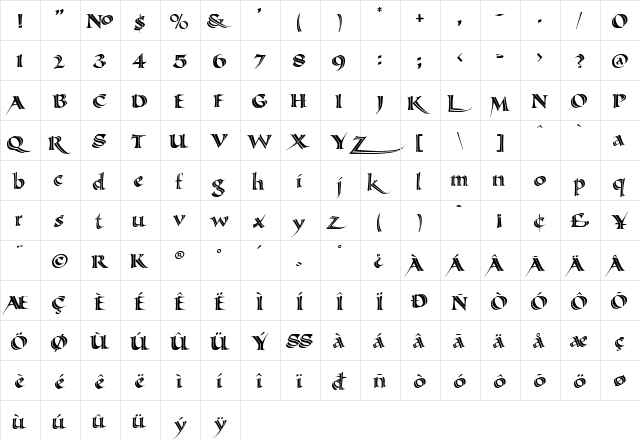
LHF Michelle Regular Inline Regular
Design Context for LHF Michelle Regular Inline Typeface
LHF Michelle Regular Inline is built around its visual character rather than neutral utility — its distinctive forms are designed to make an impression at display sizes.
Font Pairing: Pair with a clean neutral sans-serif for body copy to let LHF Michelle Regular Inline's character lead without overwhelming the composition.
Pro Tip: Treat LHF Michelle Regular Inline as the centrepiece of your typographic hierarchy. One strong heading set in a decorative face can carry an entire layout.